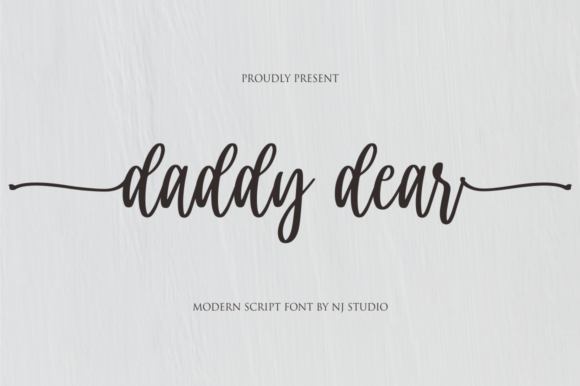
Introducing Daddy Dear Font, the epitome of elegance and sophistication in the world of fonts. Crafted with love by NJStudio, this cursive handwritten font is designed to captivate your senses and leave a lasting impression on any project.
With its PUA encoding, Daddy Dear gives you effortless access to an exquisite collection of glyphs and swashes. Say goodbye to limitations and embrace the freedom to express your creativity in ways you never thought possible.
Are you in search of the perfect font to add a touch of luxury to your creations? Look no further, for Daddy Dear is here to fulfill your desires. This font will effortlessly enhance the visual appeal of any design, exuding an air of class and sophistication that is simply unmatched.
Whether you're designing invitations for a high-end event, creating stunning logos for premium brands, or crafting elegant packaging for luxury products, Daddy Dear is your ultimate companion. Its flawless curves and elegant strokes will breathe life into your projects, making them stand out from the crowd and leave a lasting impression on your audience.
Step into a world of endless possibilities with Daddy Dear. Let your imagination run wild as you explore the versatility and charm that this font brings to the table. From wedding stationery to fashion editorials, this font is a game-changer, injecting a sense of glamour and refinement into every piece it graces.
But Daddy Dear is not just another font; it's an experience. Embrace the feeling of exclusivity as you indulge in the artistry of this masterpiece. Allow it to transport you to a realm of opulence and grandeur, where every stroke tells a story and every word evokes emotion.
Join the league of design connoisseurs who understand the power of a well-chosen font. Embrace Daddy Dear and elevate your creations to new heights of elegance and luxury. Don't settle for ordinary when you can have extraordinary.